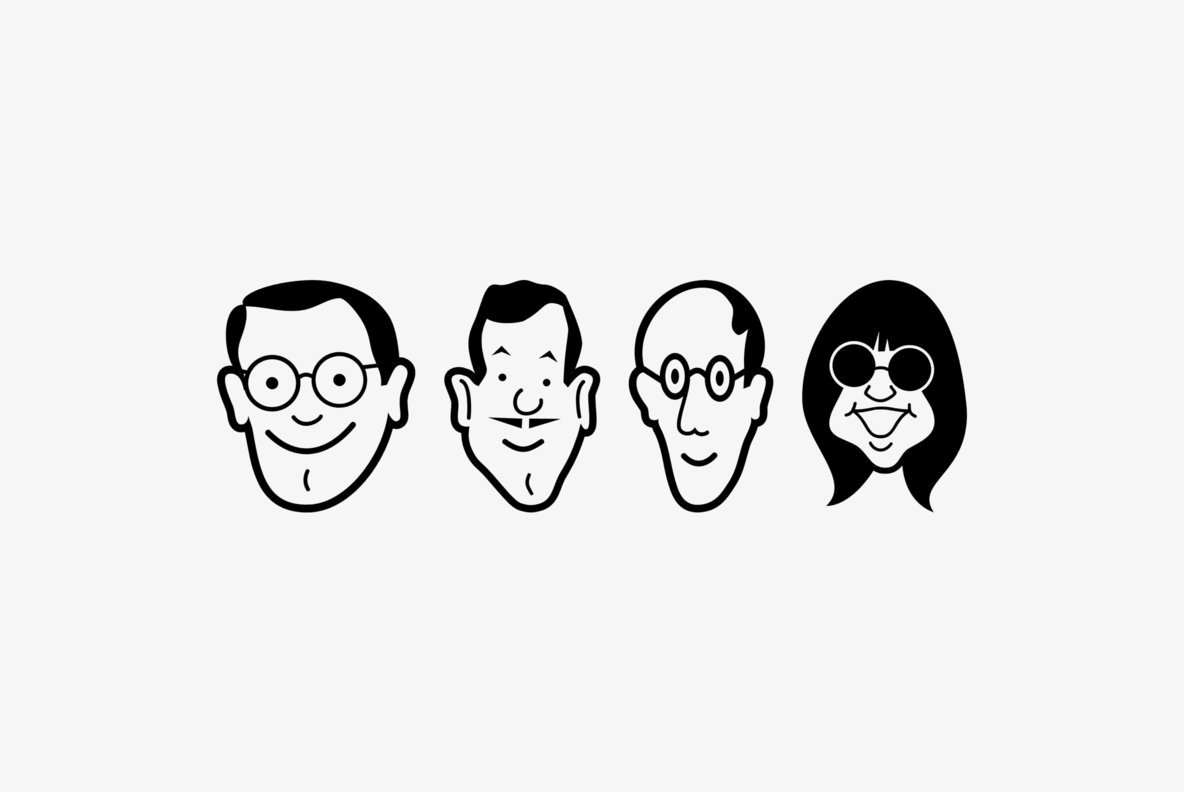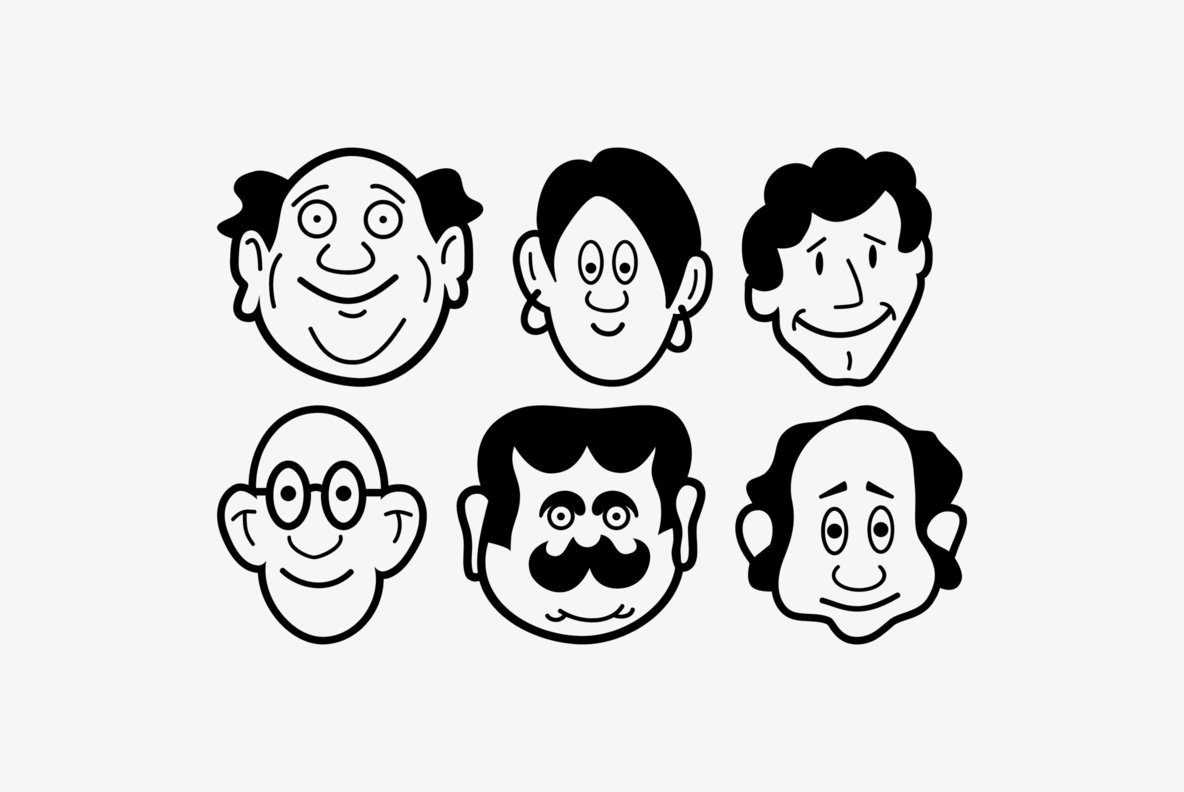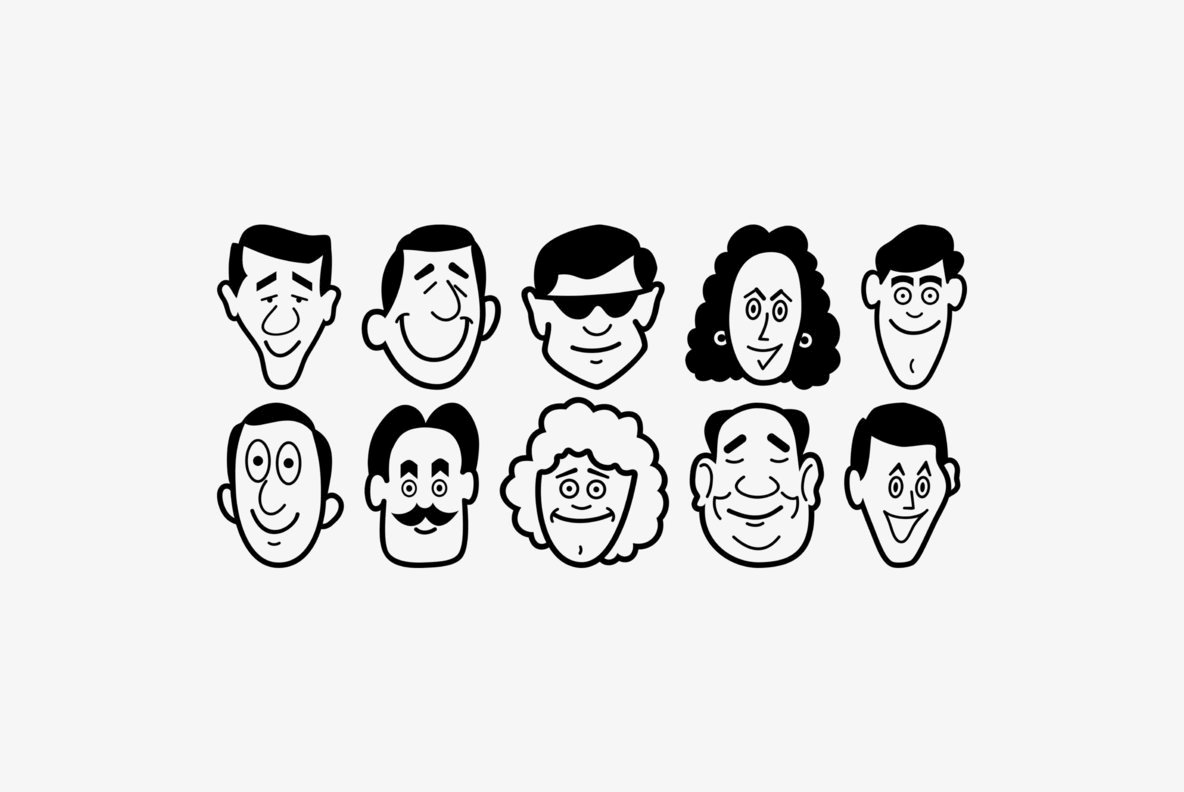
Smiling Faces Font
Smiling Faces
Gerald Gallo's creation, Smiling Faces, offers an eclectic array of 47 distinct face designs. These illustrations lend themselves seamlessly to a variety of projects, infusing a playful and approachable element into your work.Smiling Faces: Diverse Expressions in Graphic Design
Versatile Features
Gerald Gallo is a professional graphic designer.While designing trademarks and logotypes, Gerald often designed unique lettering. It was a natural step to create entire alphabets from some of these designs. However, it was very difficult to have a font produced before the advent of the personal compute...